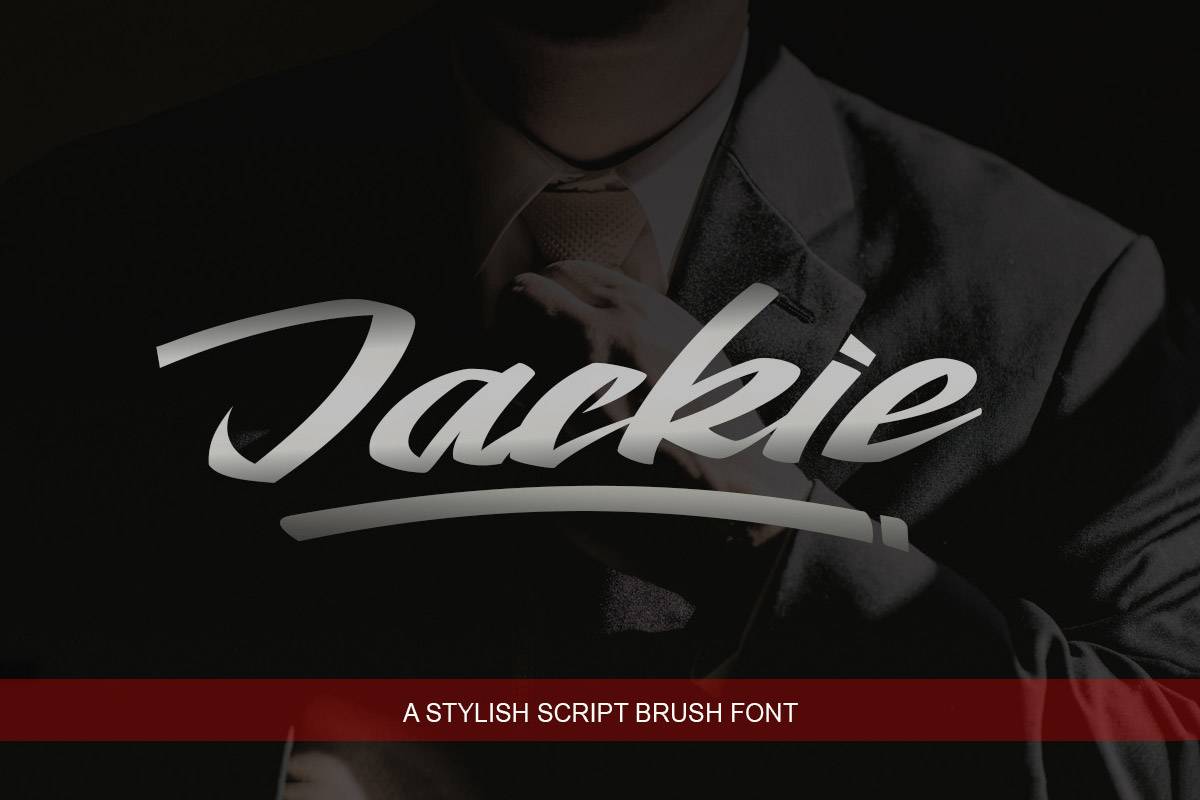
Jackie Brush is a lively and expressive brush script font with a casual, hand-painted feel. Its tall, slightly condensed letterforms and energetic strokes create a bold yet approachable style, perfect for adding personality to creative projects, branding, and headlines that need a friendly, artistic touch. This font works especially well in designs that aim to convey warmth, creativity, and a dynamic visual tone.
Jackie Brush Font